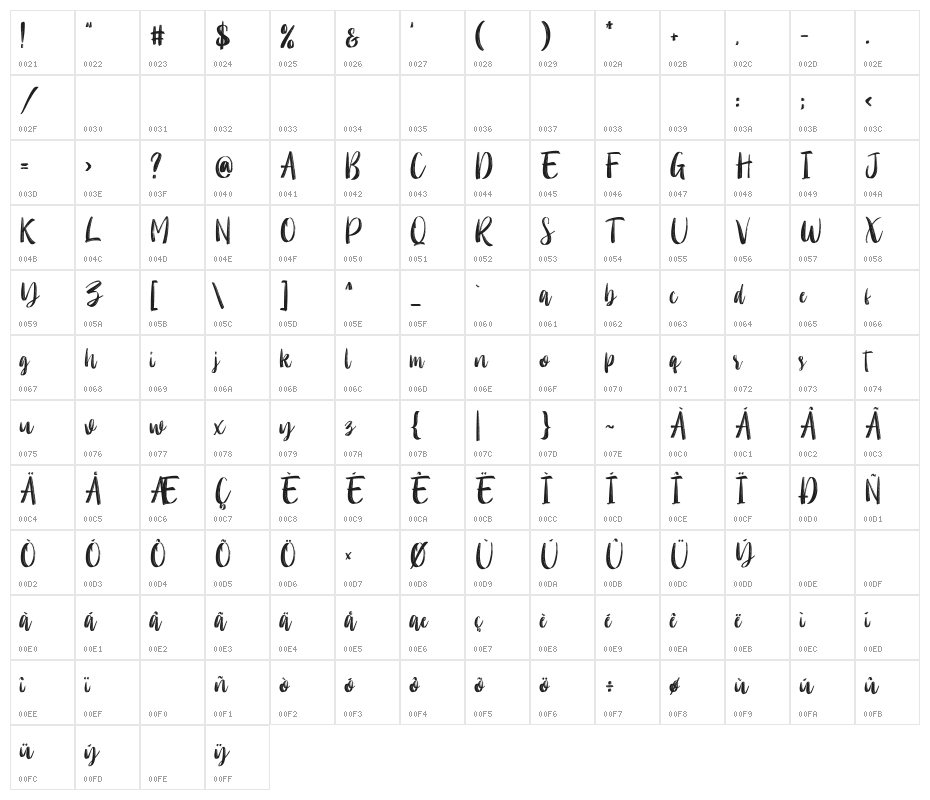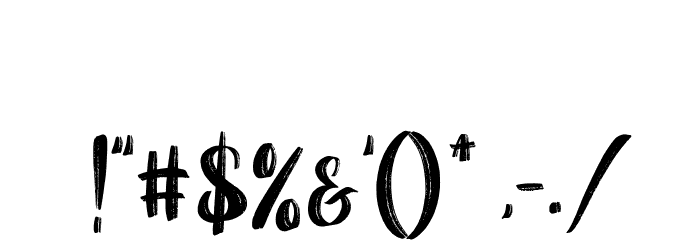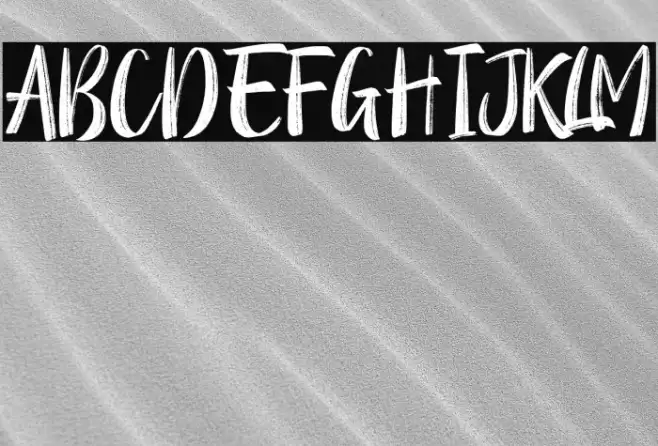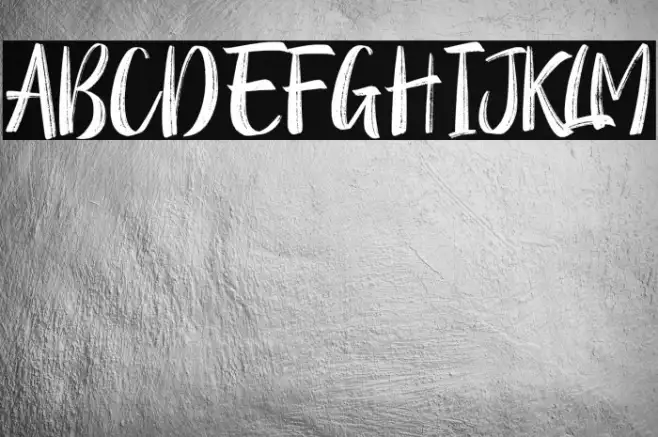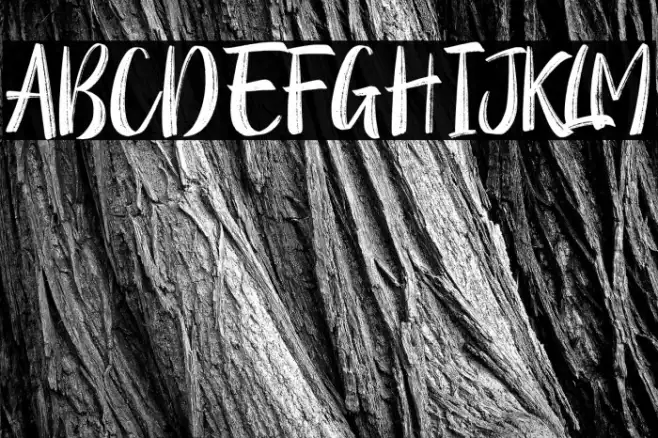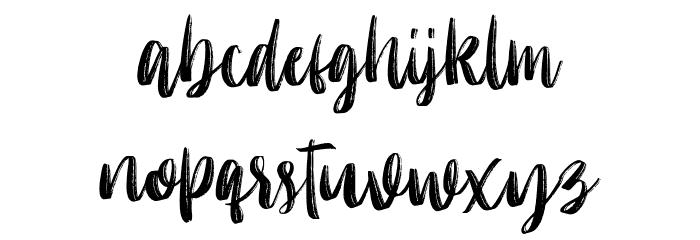
Molliquam Font
Molliquam Description
This font features a bold and expressive handwritten style, characterized by its dynamic and fluid strokes. The uppercase letters exhibit a playful yet sophisticated flair, with varying stroke widths that add a sense of movement and energy. The lowercase letters maintain this lively aesthetic, offering a harmonious balance between elegance and casual charm. The numerals and special characters are crafted with the same attention to detail, ensuring consistency throughout. This font's unique personality makes it ideal for projects that require a touch of creativity and individuality.
| Proposed Projects | Ideal for branding, invitations, greeting cards, and social media graphics. |